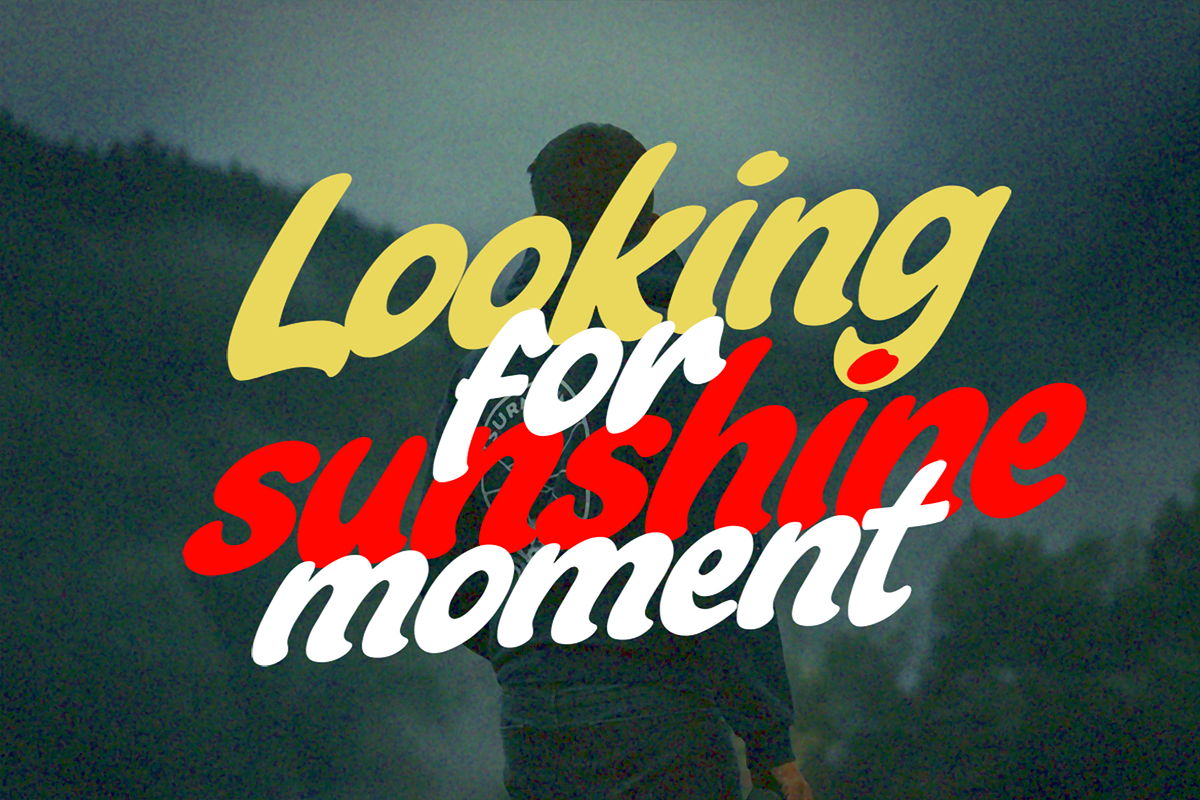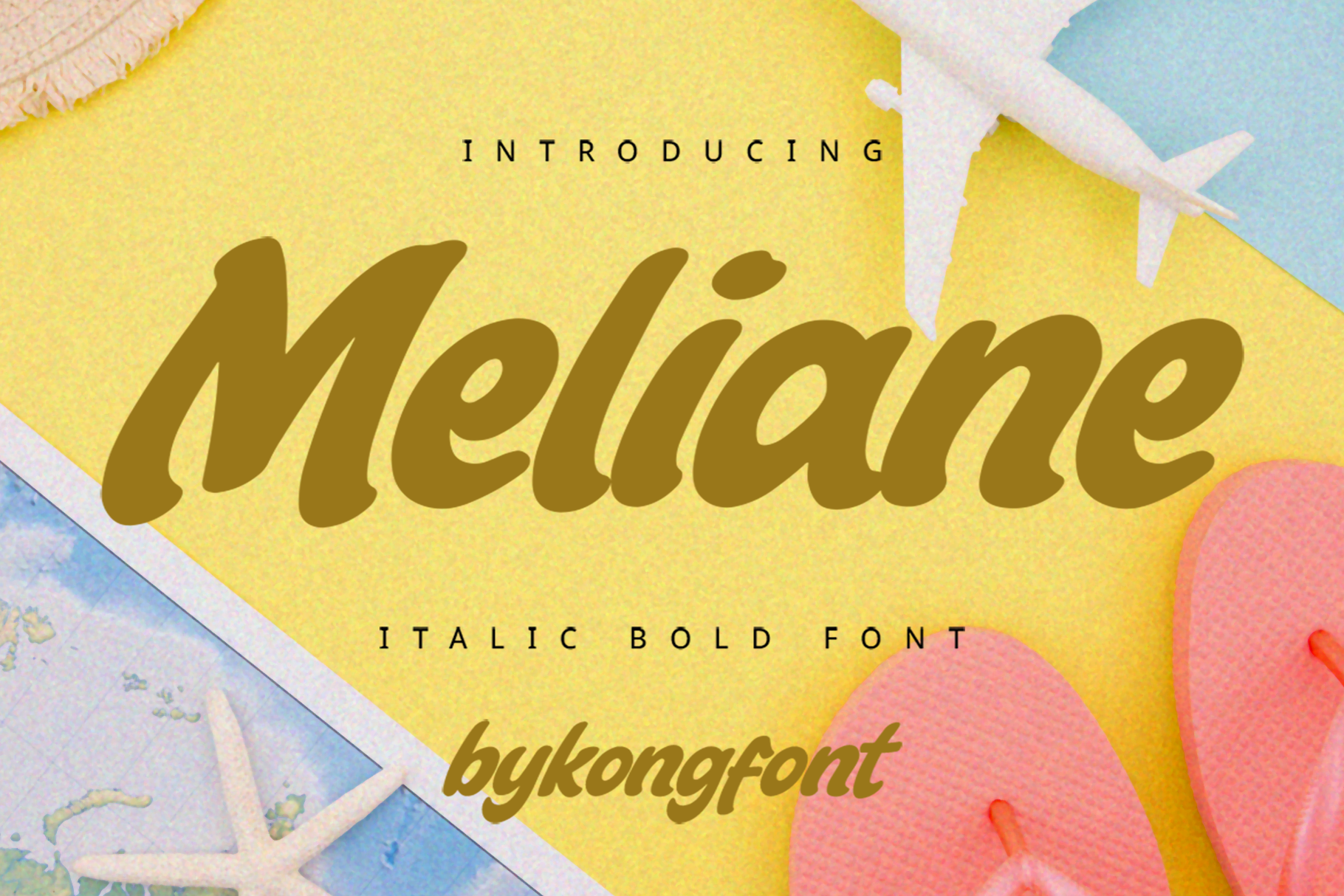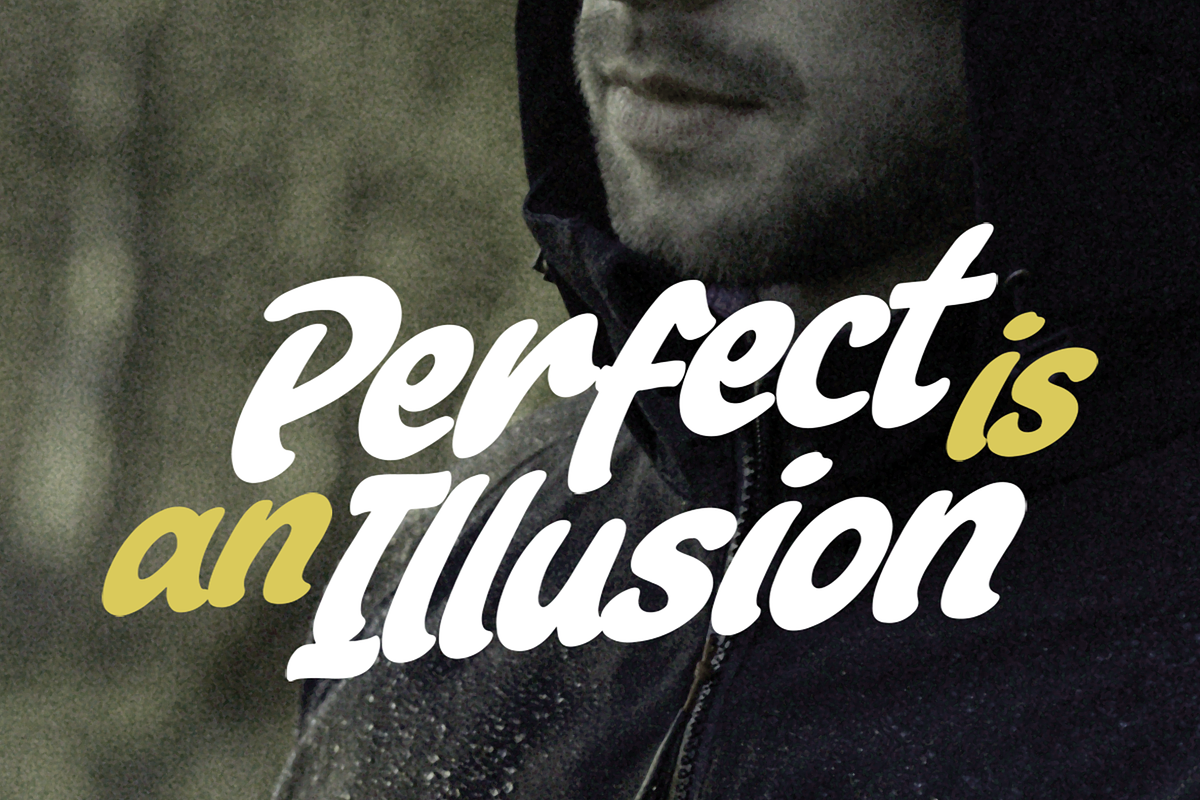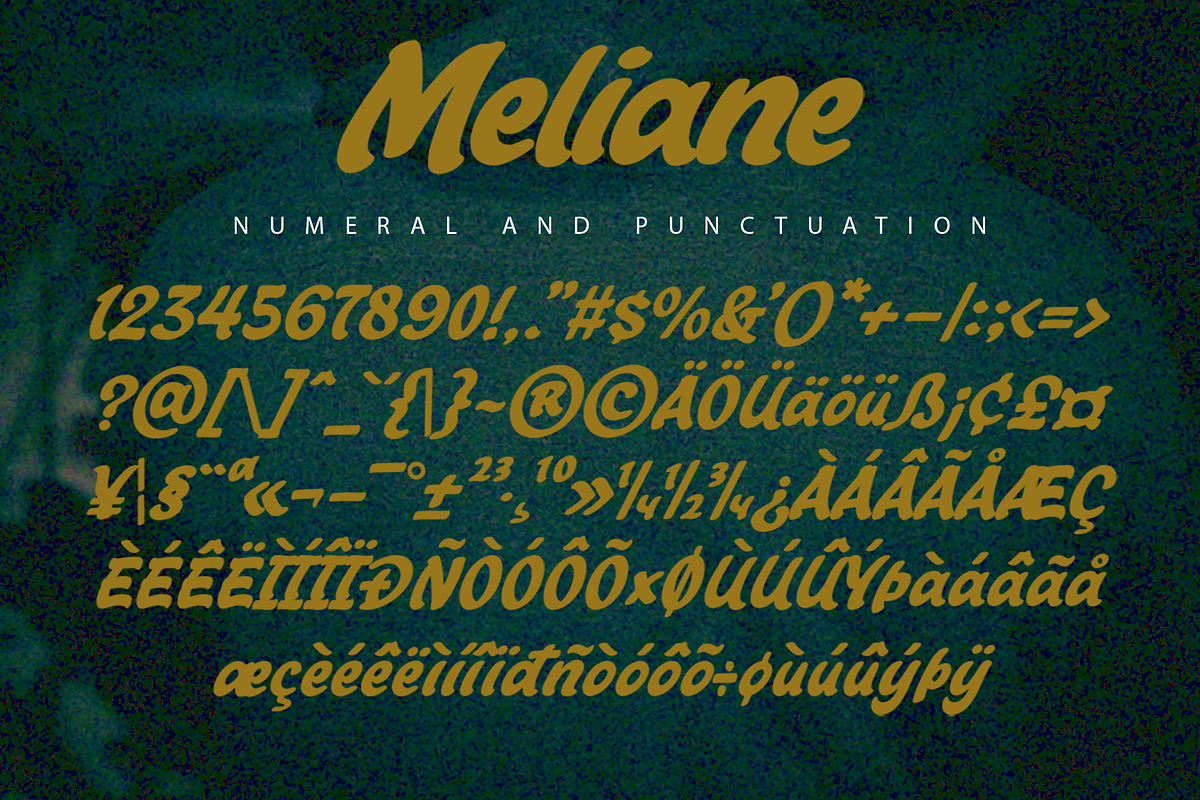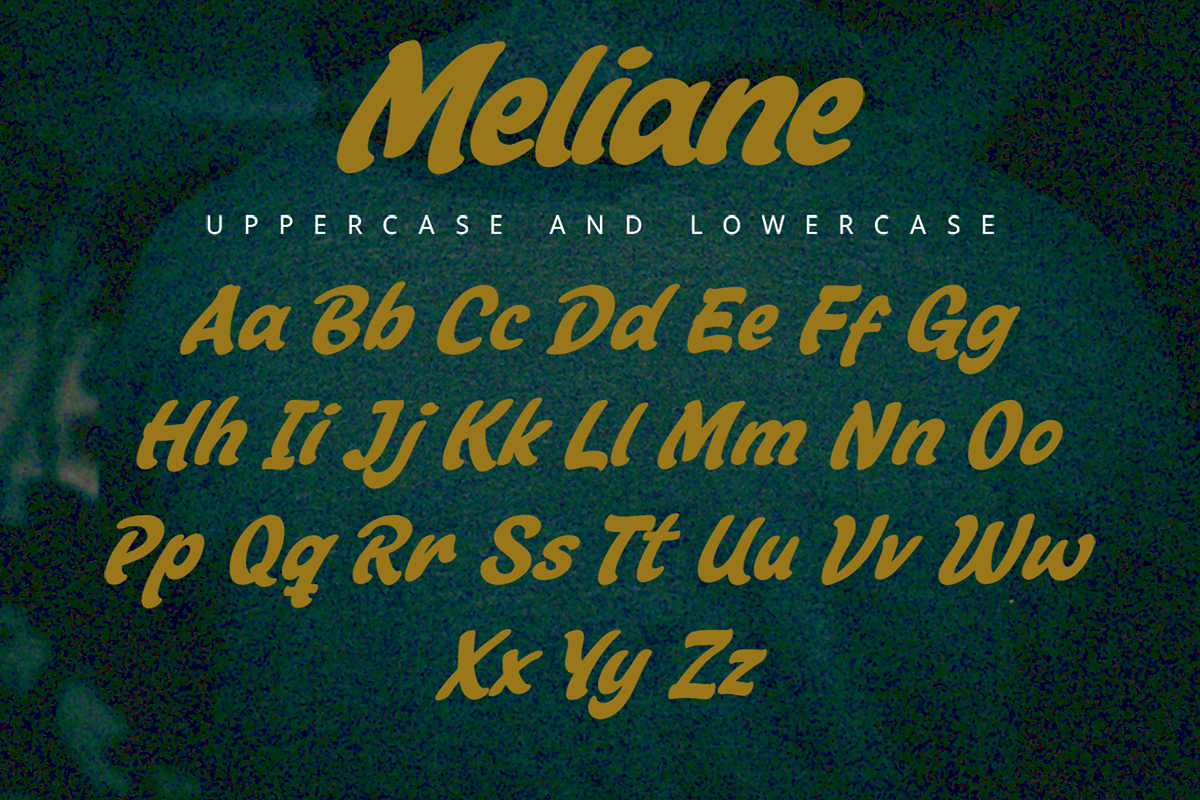
Meliane - An Italic Bold Font
Introducing Meliane, an italic bold font that combines strength and sophistication. With its slanted design and bold strokes, this typeface brings a dynamic and modern aesthetic to your projects.
Perfect for logos, branding, headlines, and editorial design, Meliane balances boldness with elegance, making it a versatile choice for a variety of applications. Its italic style adds a touch of movement and flair, elevating your creative work.
Featuring a full character set, multilingual support, and a bold yet elegant design, Meliane is the ultimate font for making a powerful statement.